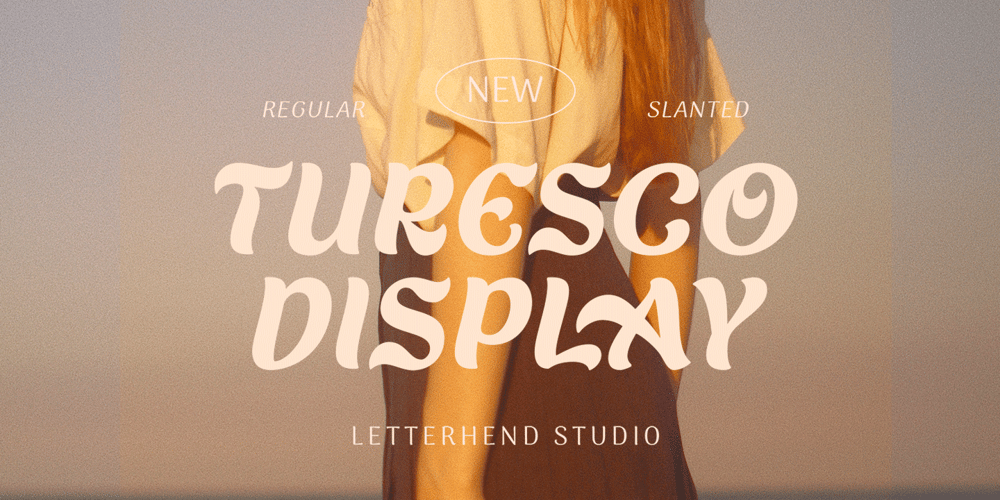
Turesco Font Family was designed by Hendry Juanda and published by Letterhend. Turesco contains 2 styles and family package options. Turesco Display is a display typeface with unique letterform. It looks great to be used for modern and minimalistic yet still playful and fun theme. This font perfectly made to be applied especially in logo, and the other various formal forms such as invitations, labels, logos, magazines, books, greeting / wedding cards, packaging, fashion, make up, stationery, novels, labels or any type of advertising purpose.Features : uppercase & lowercase numbers and punctuation multilingual alternates & ligatures PUA encoded We highly recommend using a program that supports OpenType features and Glyphs panels like many of Adobe apps and Corel Draw, so you can see and access all Glyph variations. How to access opentype feature : letterhend.com/tutorials/using-opentype-feature-in-any-software/